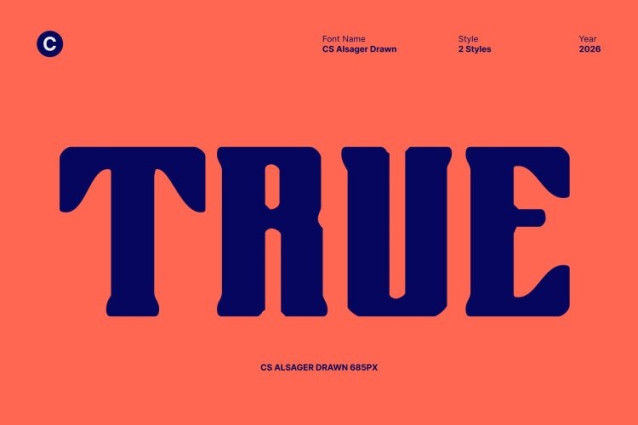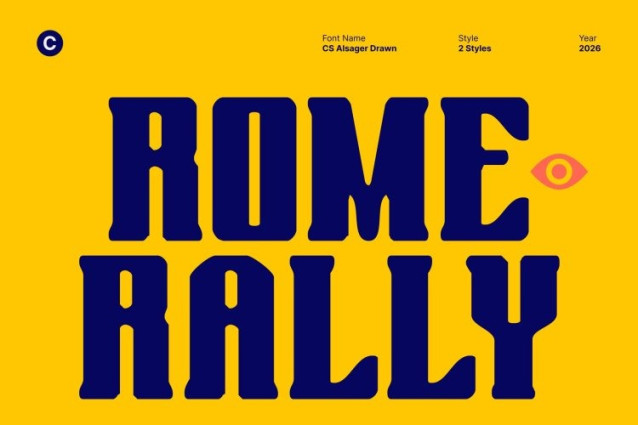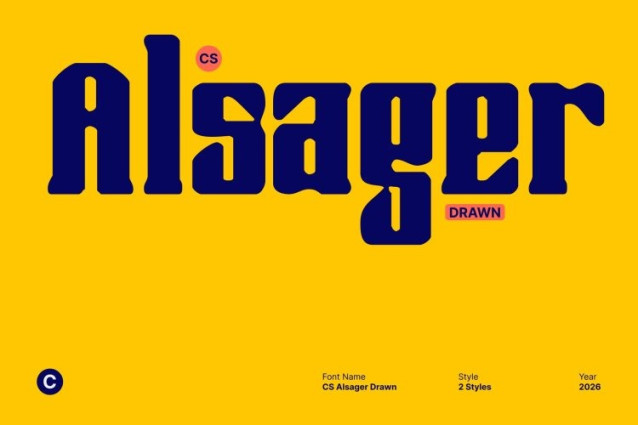
CS Alsager Drawn Font
CS Alsager Drawn Font This is an industrial display font designed to express strength, control, and technical precision through a handcrafted lens. Its bold construction and sharp serif details are enhanced with a subtle drawn texture, giving the font a raw, human touch while maintaining a mechanical and forward-looking presence. The result is a powerful typeface that feels engineered yet expressive.
Structured Forms with Hand-Drawn Authority
The structured anatomy of this font delivers a solid, authoritative appearance, reinforced by firm serifs and strong vertical strokes. The hand-drawn effect introduces slight irregularities that soften its rigidity, adding character without sacrificing clarity. This balance creates a font that feels intentionally built, confident, and visually commanding.
Futuristic Precision with an Industrial Edge
Blending industrial toughness with futuristic precision, this font communicates innovation and progress. Its sharp details, controlled spacing, and drawn texture create a high-tech, urban atmosphere with artistic depth. The textured strokes add visual interest, making the font feel dynamic, tactile, and modern.
Perfect for Modern Branding and Impactful Headlines
This font excels in modern branding, posters, editorial layouts, and bold headlines. Its dominant personality and drawn industrial character make it ideal for tech-forward brands, urban visuals, industrial products, and striking campaigns. Whether used in logos or large-scale typography, this font delivers a memorable presence that feels strong, modern, and unmistakably unique.